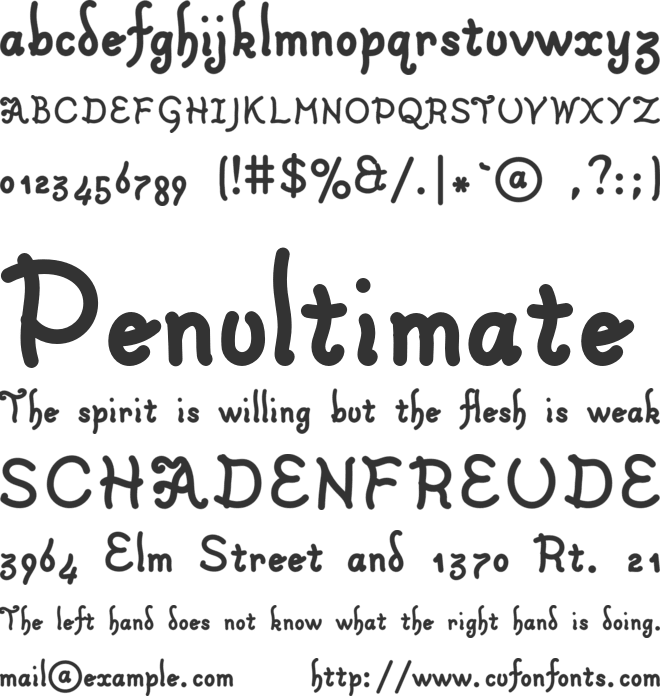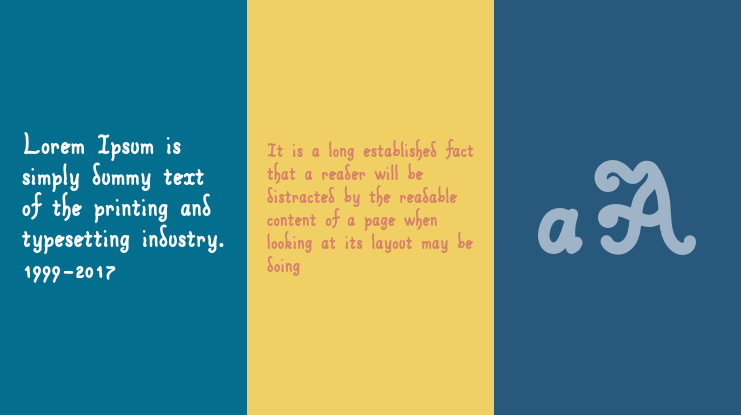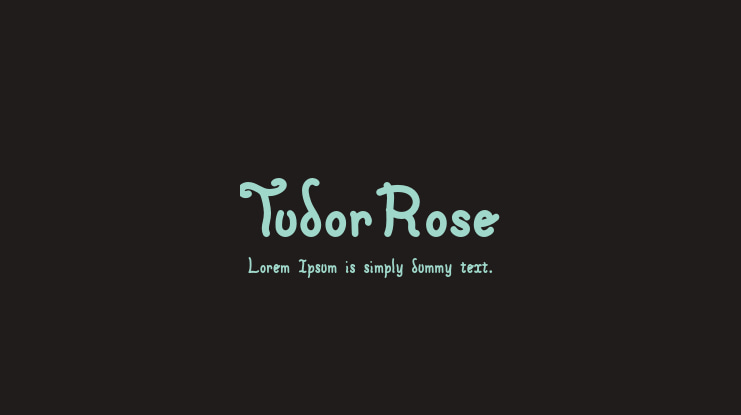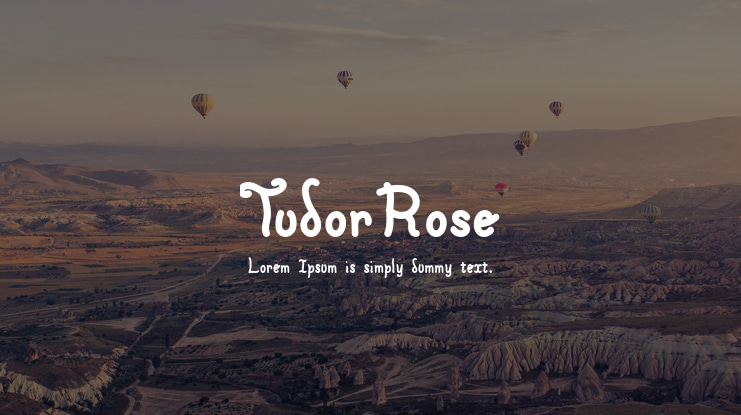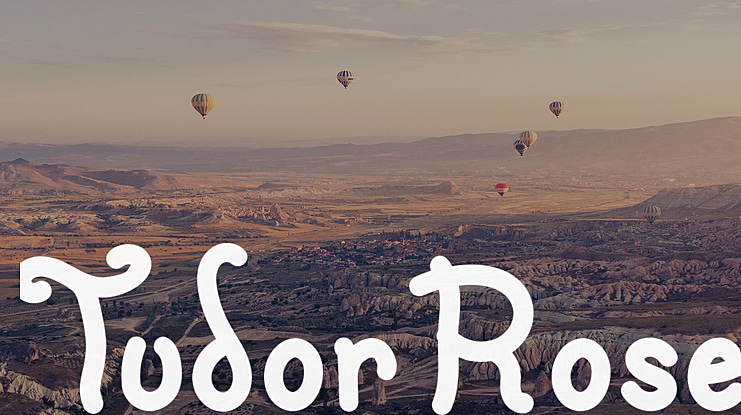
TudorRose Font
Which started with a doodle, but turned out quite nice. It has nothing to do with the Tudor calligraphy, or roses, but has a nice heavy feel to it and good curves (spiro spines). The lower case I am quite happy with, but the uppercase looks a bit forced. Currently only the ascii range is covered.